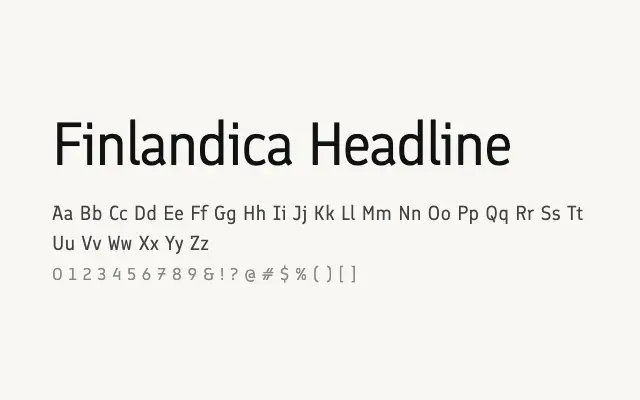
Finlandica Headline
A display-optimised humanist sans with strong Cyrillic support, built for headlines and large-scale type.
Finlandica Headline is the large-size counterpart to Finlandica Text, fine-tuned for headline weights and optical performance at display sizes. Its broad weight range from Thin to Black offers serious typographic power for editorial and branding applications. Cyrillic and Cyrillic Extended support makes it a practical choice for multilingual publishing.
Finlandica Headline is designed for large-scale display use, with optically adjusted spacing and slightly more pronounced contrast than its text counterpart. It supports Cyrillic extended, making it genuinely useful across a broad linguistic range.